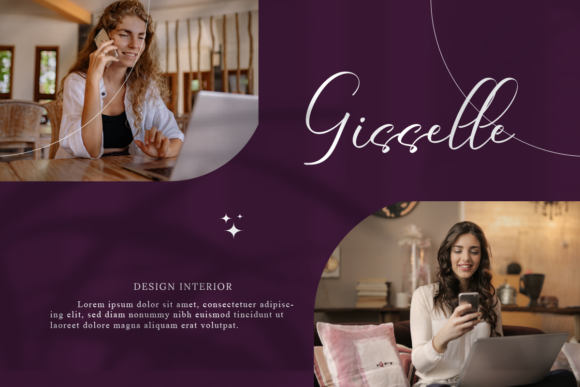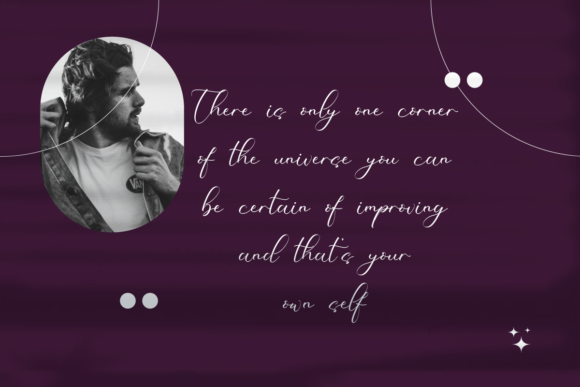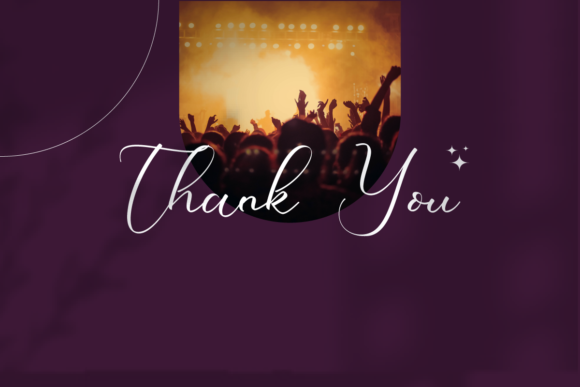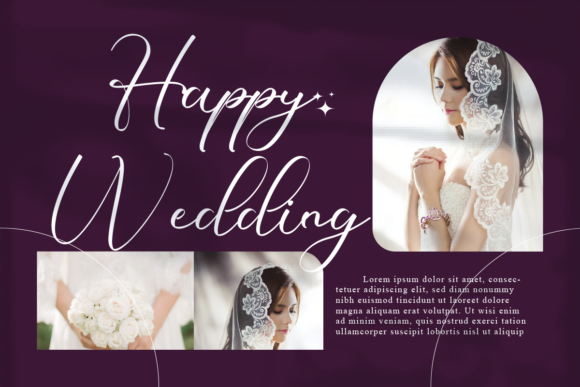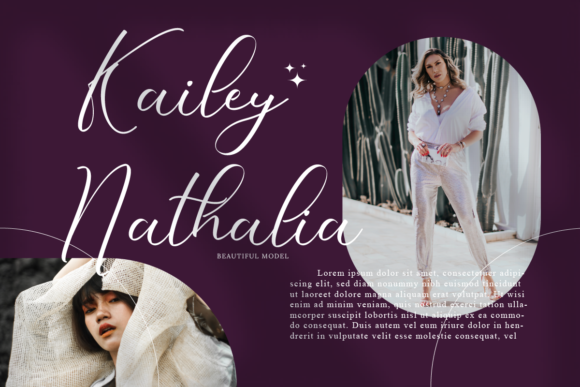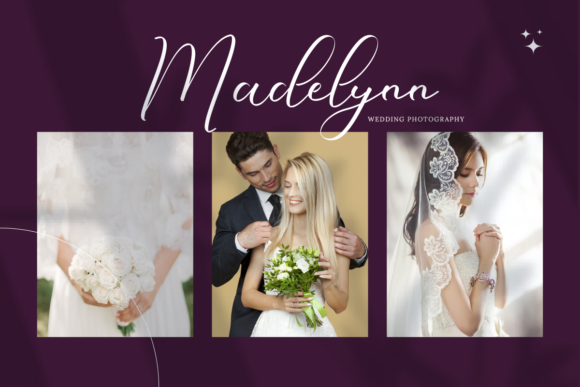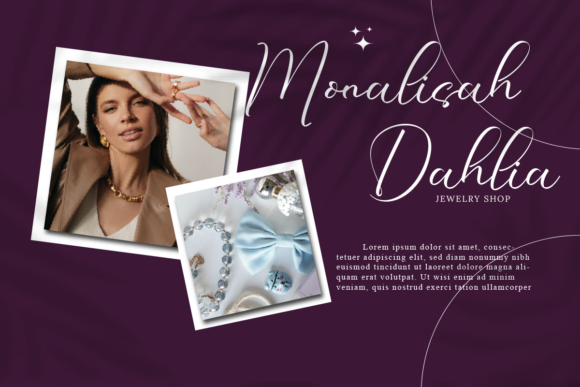
Skylar Yesyta Font
About Skylar Yesyta Font
Skylar Yesyta is a stylish and chic script font. You can use it for various projects, such as blog posts, logos, branding, ads, invitations, greeting cards, planners, photo albums, decorations, and much more.